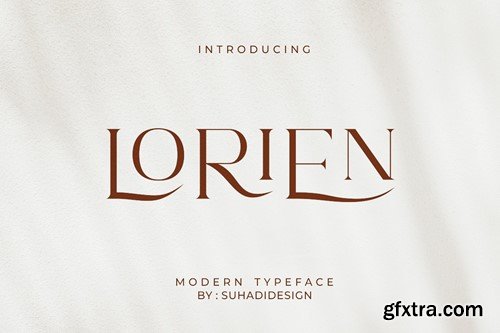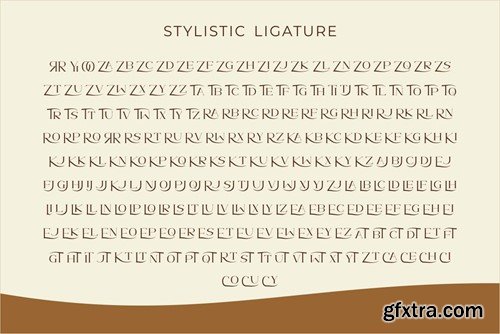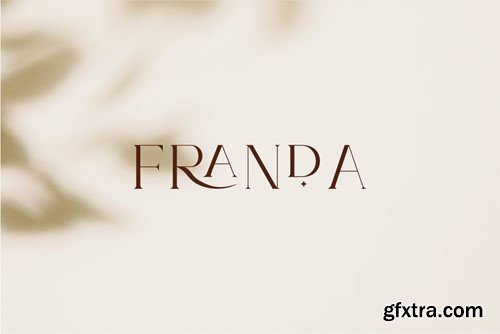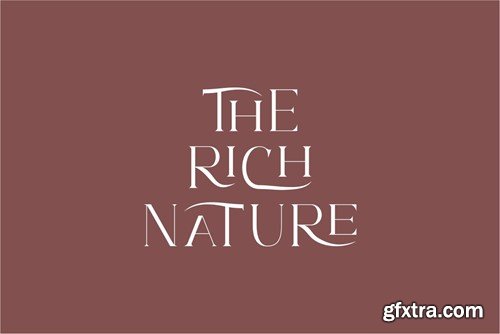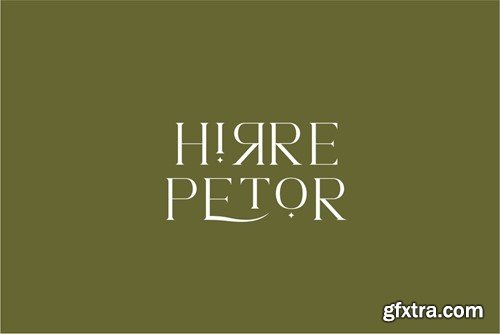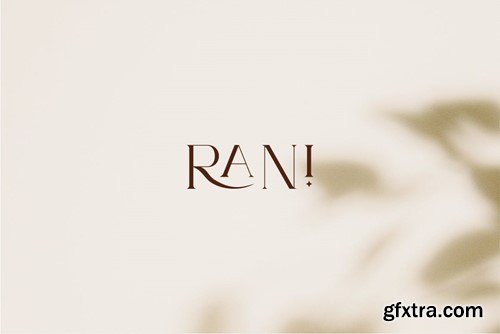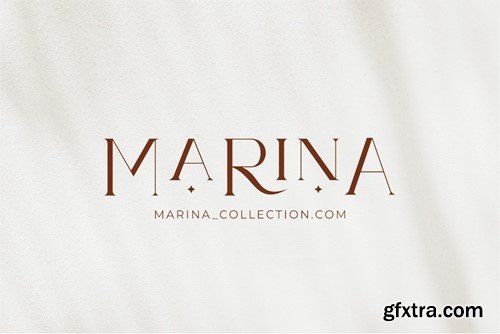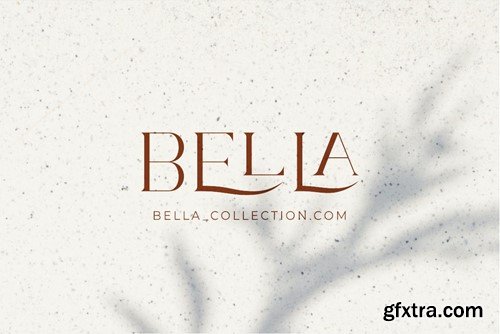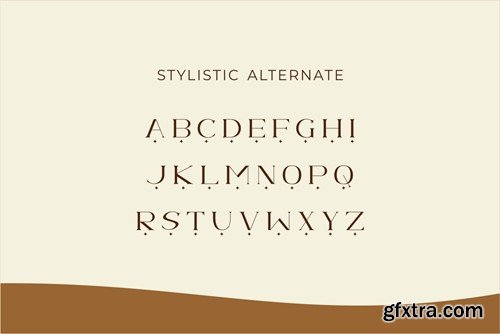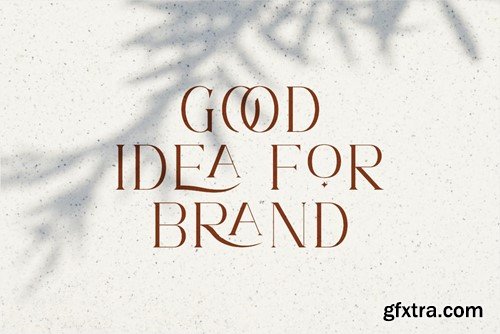
洛林现代字体衬线体 5A5L7FS
Lorien modern type serif font Hi Ladies and Gentlemen! According to the market demand, the font is more likely to be a modern font, so I decided to make this serif font in your view. Lorien font is a serif font with many ligatures very beautiful and popular, comes in a modern style to become a market favourite. We keep this font looking elegant, classy, easy to read, stylish, attractive and easy to use. Lorien Font is a great choice for beauty brands, magazines, newspapers, books, brand names, branding, brands, quotes, album covers and other projects. Lorien font is here to elevate the quality of your designs to new heights. Lorien Font is my twenty-eighth Font made in 2022 The Lorien font style will make you love designing and take advantage of the cool design results for this font. Keep following us for updates on next font creation :) Font Features: • All caps • Stylistic ligature • Stylistic alternate • Multilingual Support • Numbers and punctuation What is included: Lorien (Otf/Ttf)